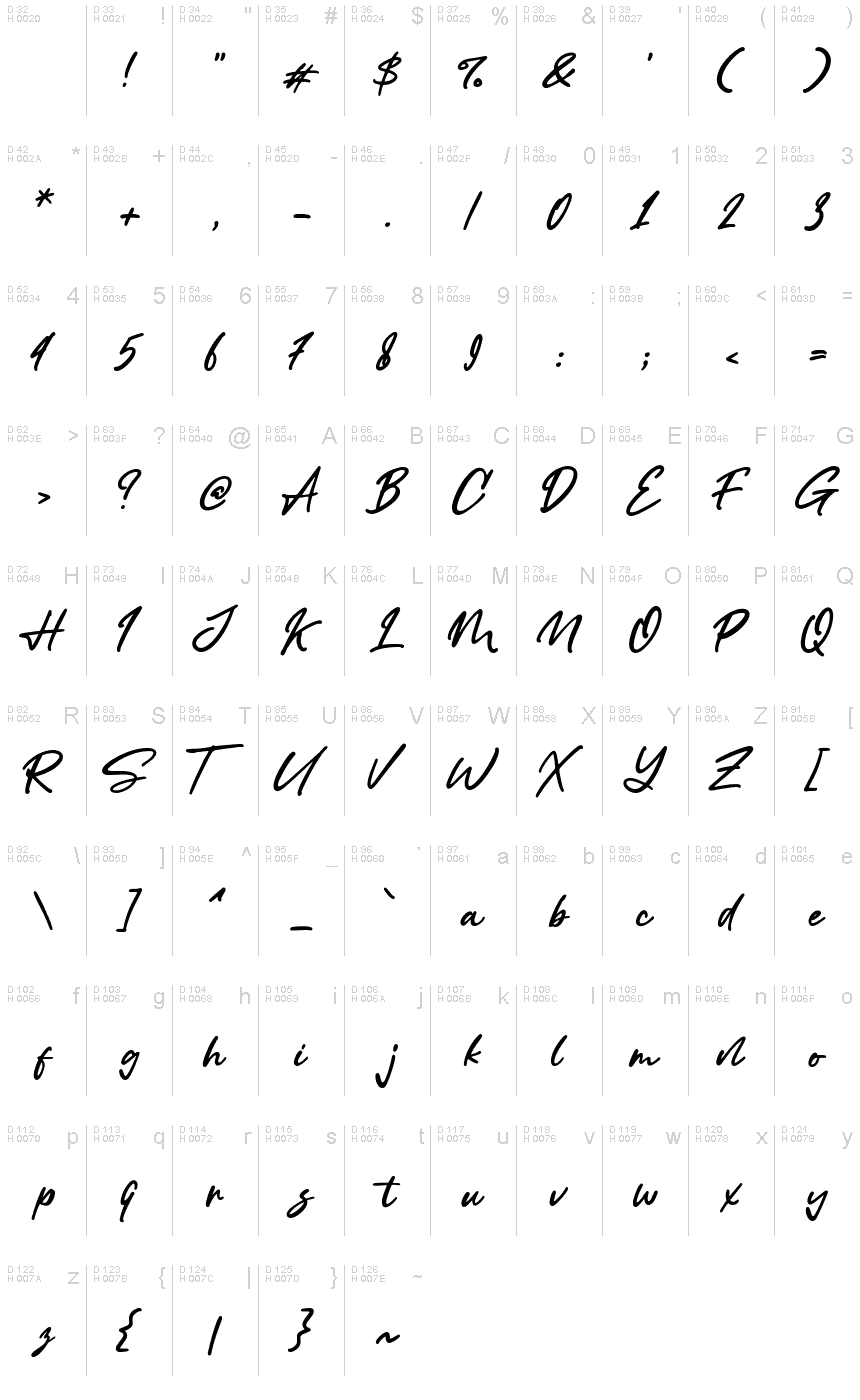
Sansilk
Sansilk, a captivating font designed by Khurasan, combines the charm of handwritten script with a touch of modernity. With its semi-light weight, Sansilk exudes elegance and versatility, making it perfect for a wide range of projects. Whether you're designing wedding invitations for an intimate affair or crafting eye-catching logos for a trendy café, this font effortlessly adds personality and sophistication. Its graceful strokes and smooth curves lend themselves beautifully to branding materials, packaging designs, blog headers, and much more. Embrace the unique allure of Sansilk and elevate your creative endeavors to new heights.